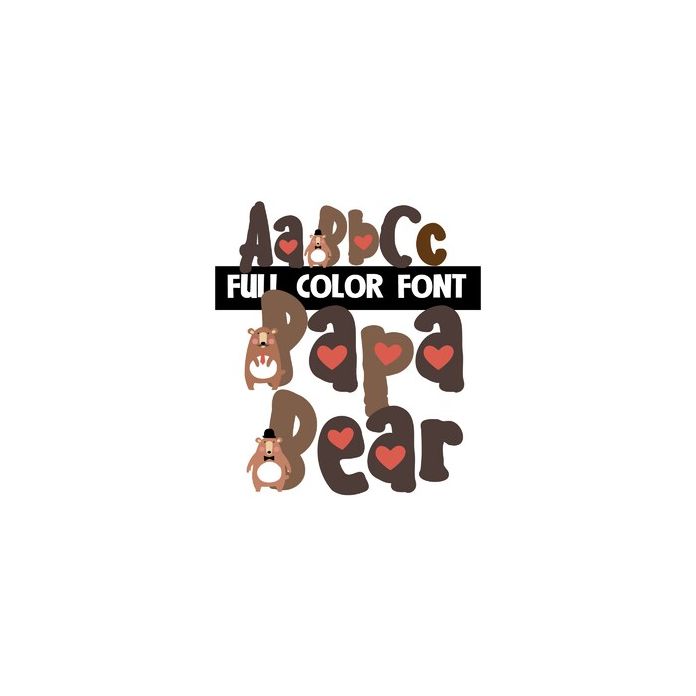
This cute full-color font features brown lettering w/ bears on most the uppercase. There is a second uppercase available through Silhouette's glyph map.